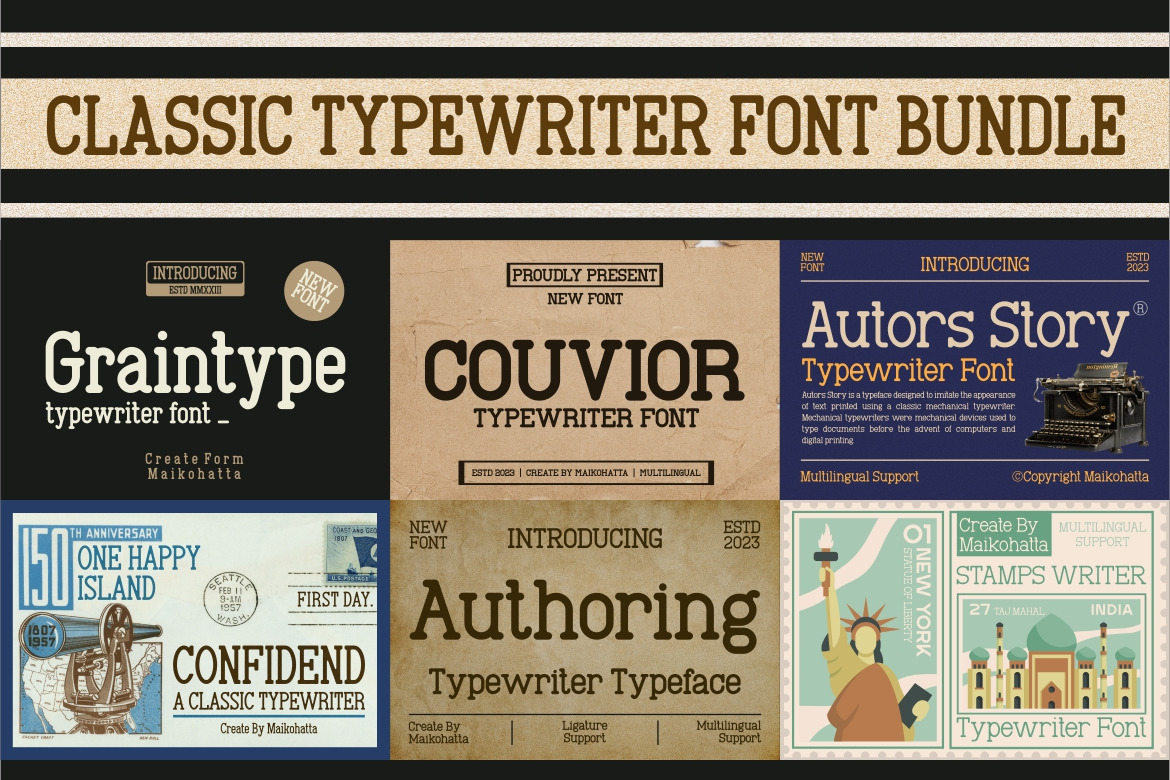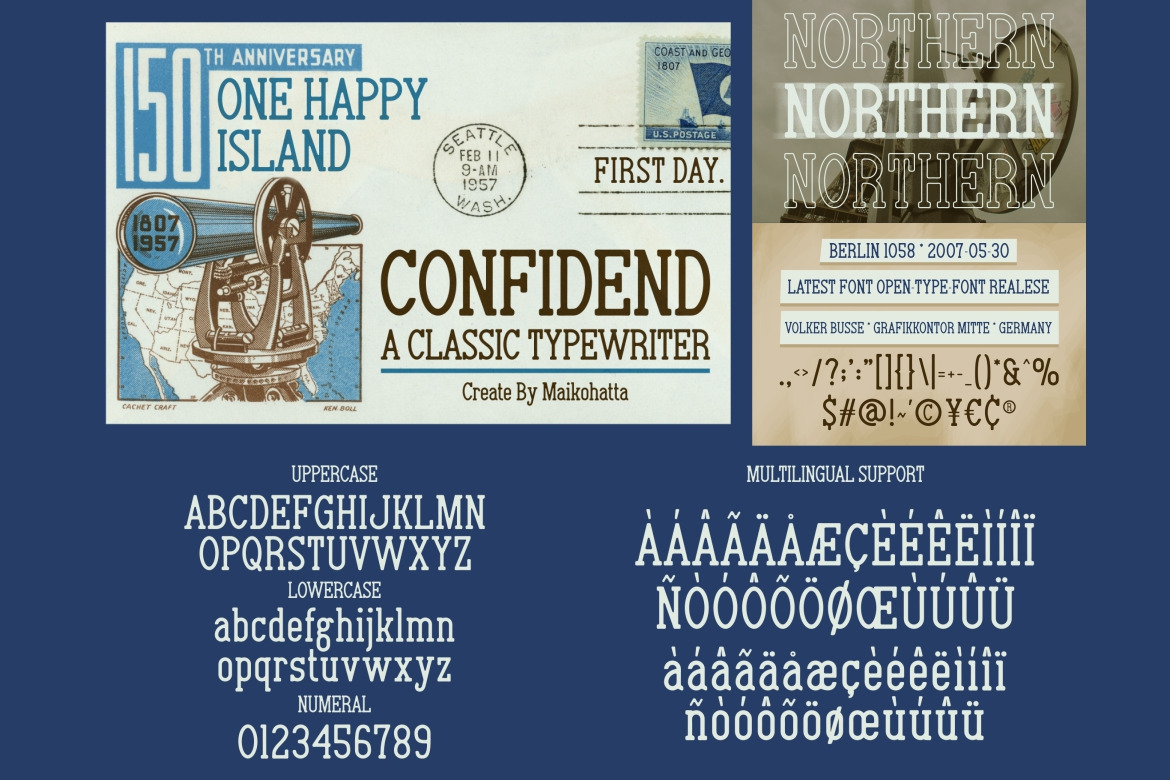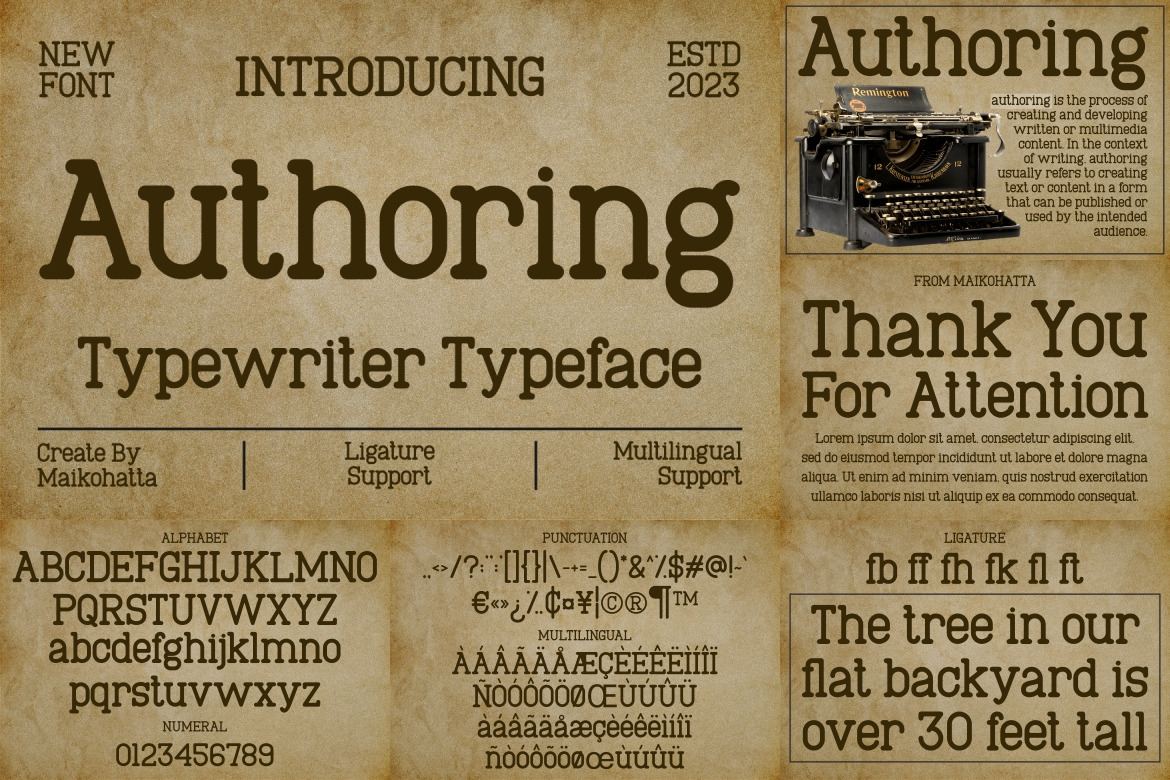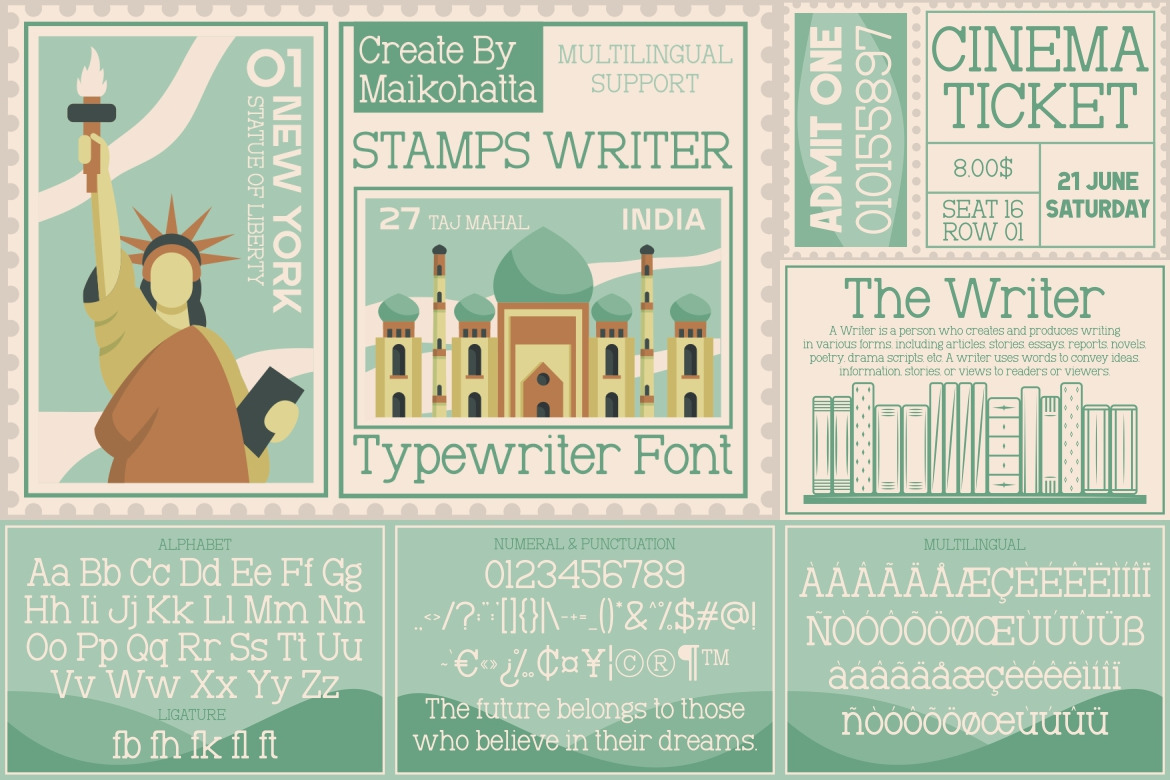
Classic Typewriter Font Bundle
This font combines traditional serif elements with the aesthetics of a typewriter, creating a captivating font that imparts a classic feel to any design it's used in. It produces a unique appearance and is often employed to achieve a retro or vintage impression.
* Uppercase
* Lowercase
* Multilingual
* Ligature ( Autors Story, Authoring )